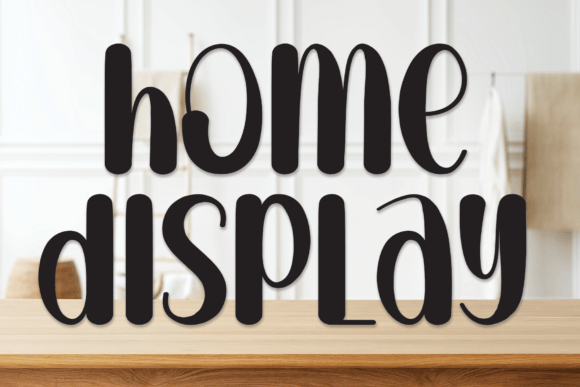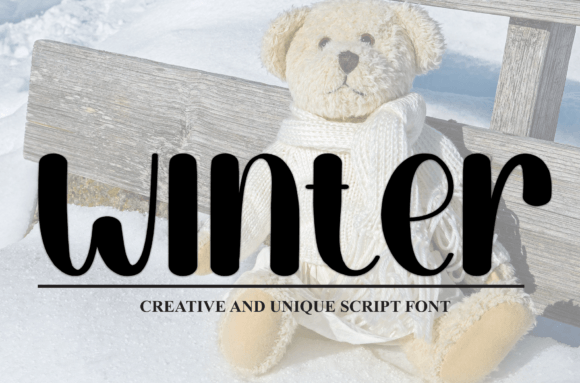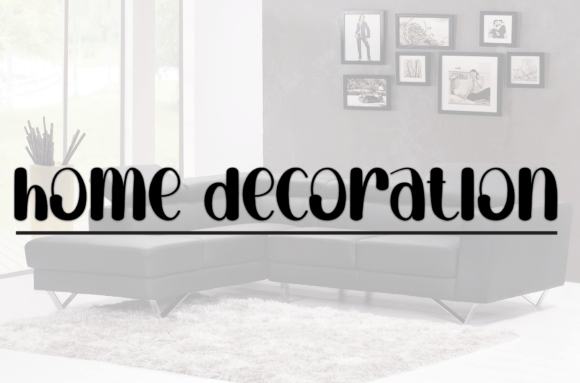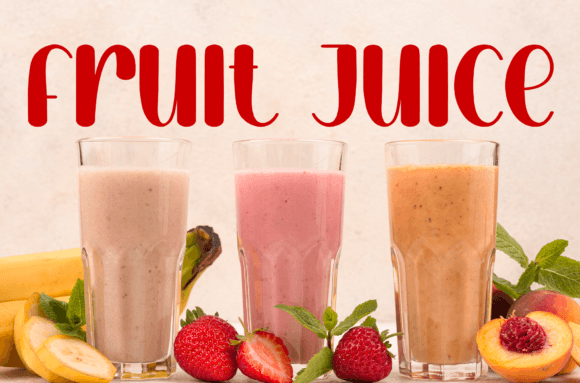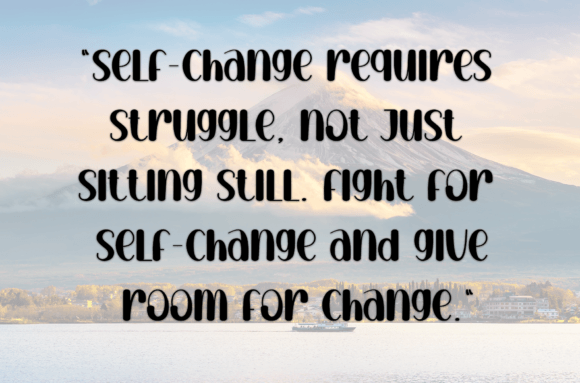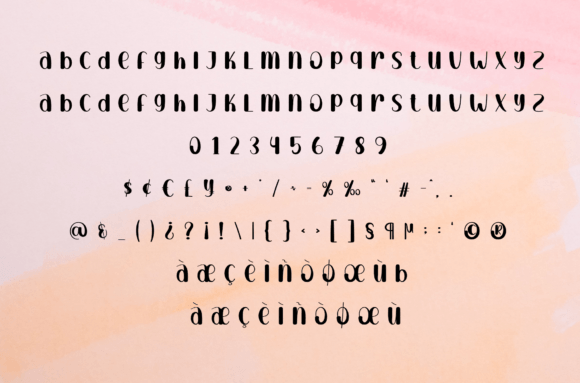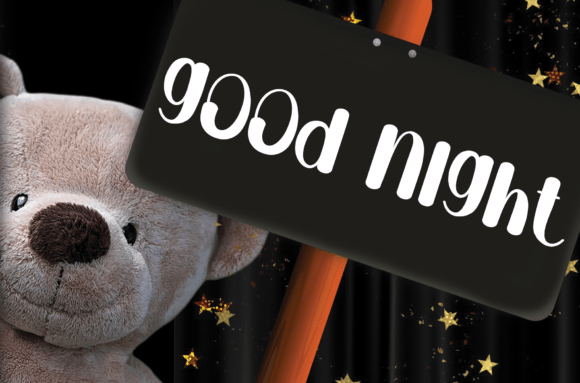
Home Display
About Home Display
Home Display is a cool and friendly handwritten display font. Creative and versatile, this font is ideal for writing wedding invitations, cards, or any other design that might need a fun touch!